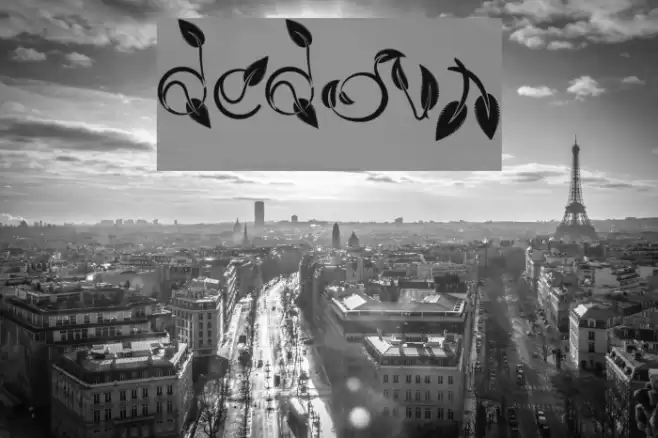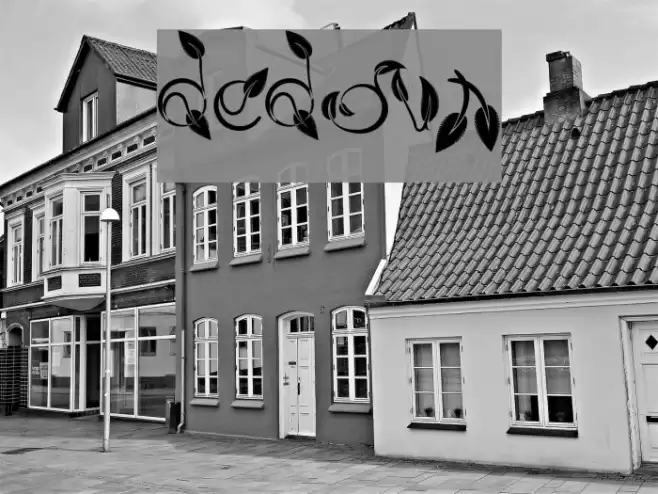
dedaun Font
dedaun Description
This font is a decorative and nature-inspired typeface that integrates leaf motifs into the structure of each character. The letters are adorned with intricate leaf designs, creating a whimsical and organic appearance. The strokes are smooth and flowing, with leaves sprouting from various points, adding a sense of growth and vitality. This font is highly stylized, making it ideal for projects that require a natural or eco-friendly theme. The unique design elements make it stand out, providing a fresh and lively aesthetic.
A decorative font with leaf motifs integrated into each character, offering a nature-inspired look from Decorative fonts.
- Proposed Projects: Ideal for eco-friendly branding, nature-themed event invitations, garden product packaging, and environmental awareness campaigns.